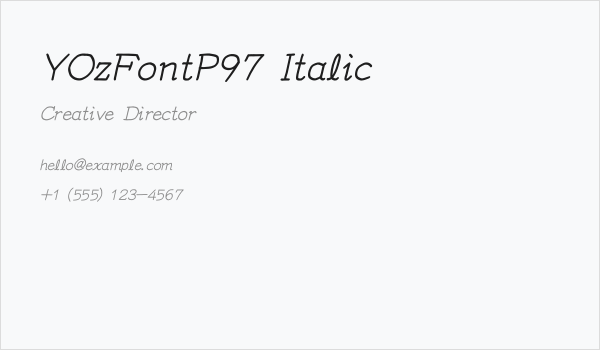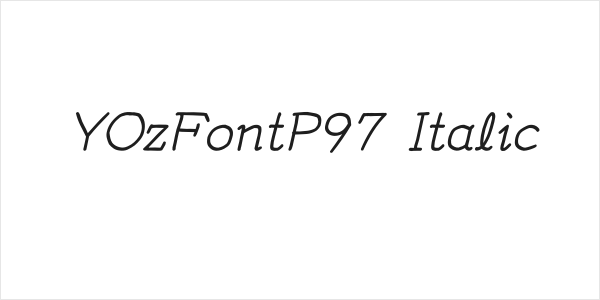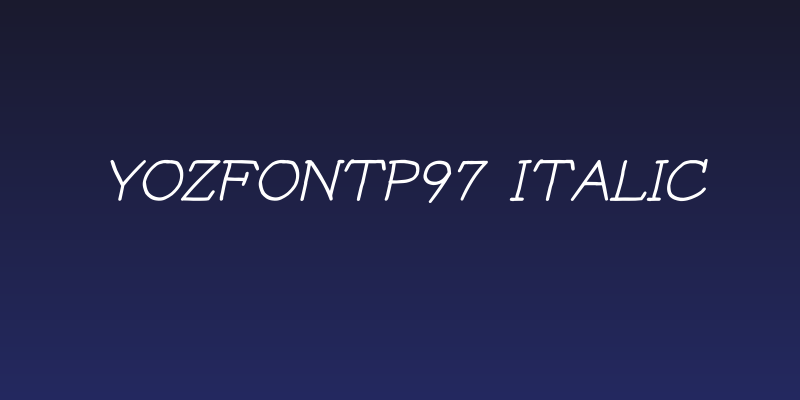
YOzFontP97 Italic Font
YOzFontP97 Italic Description
This font features a sleek, italicized style that combines elegance with readability. The letters are slightly slanted, giving a sense of motion and fluidity, while maintaining clear and distinct shapes. The uppercase letters are bold and prominent, while the lowercase letters are more delicate, yet still maintain a consistent weight. The numerals are well-proportioned and align seamlessly with the overall design. Special characters are crafted with the same attention to detail, ensuring they integrate smoothly with the rest of the font. This font's design is both modern and timeless, making it versatile for various applications.
| Use Case | Logos, Invitations, Editorial design |
| Proposed Projects | Ideal for branding, invitations, elegant signage, and editorial design. |